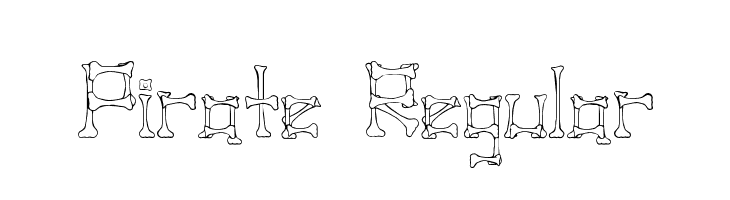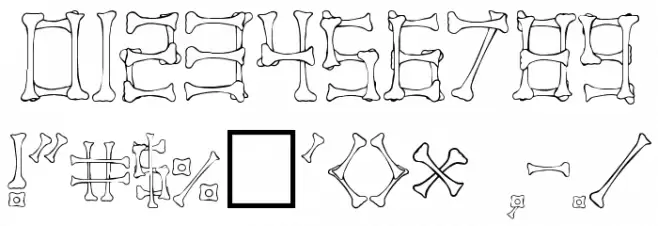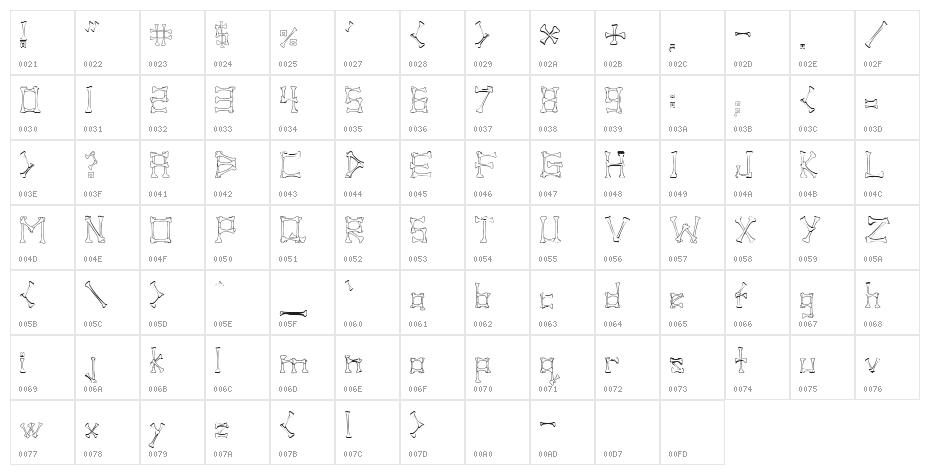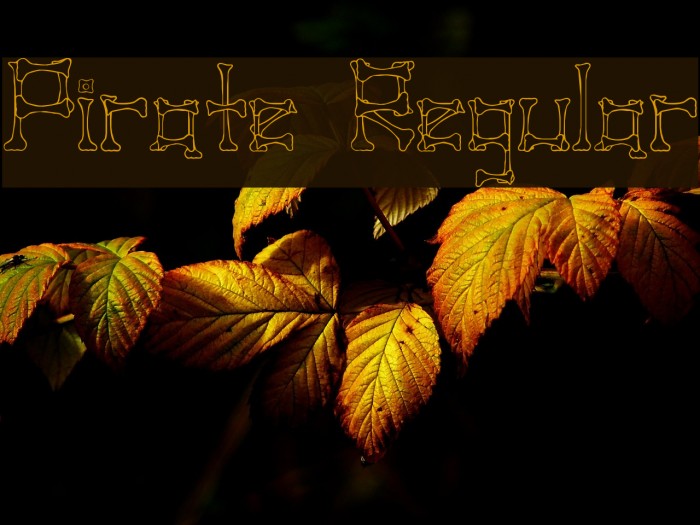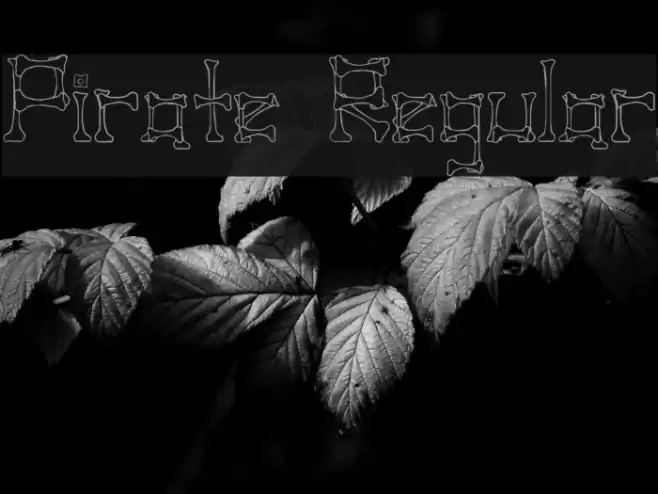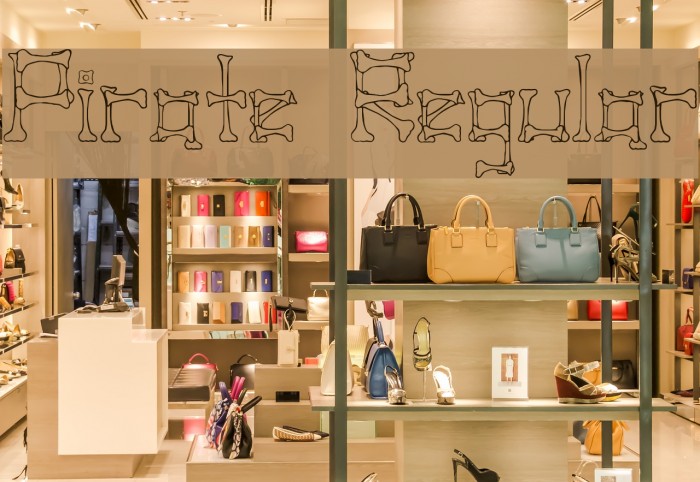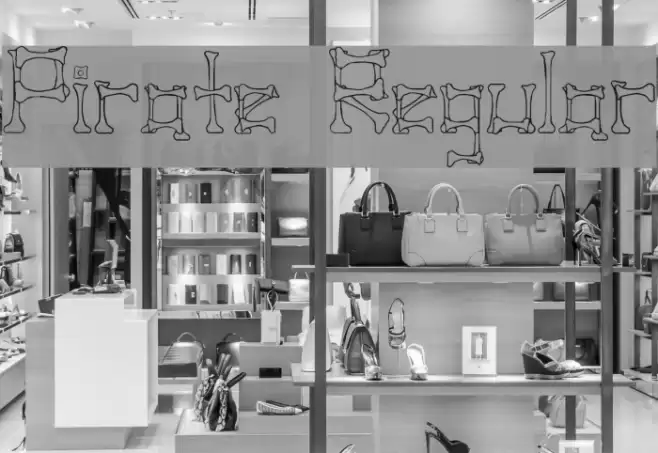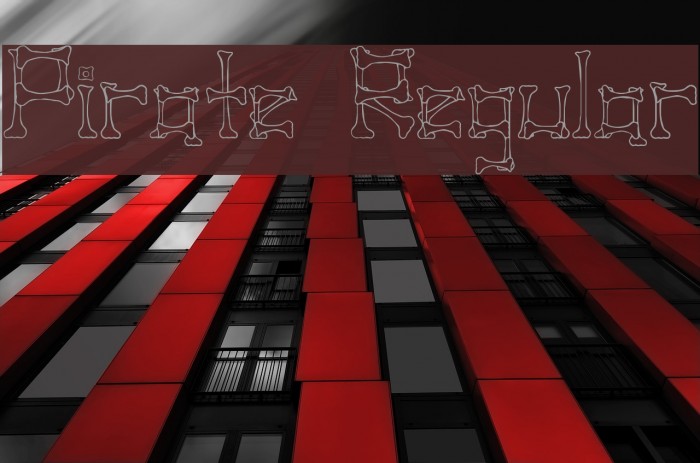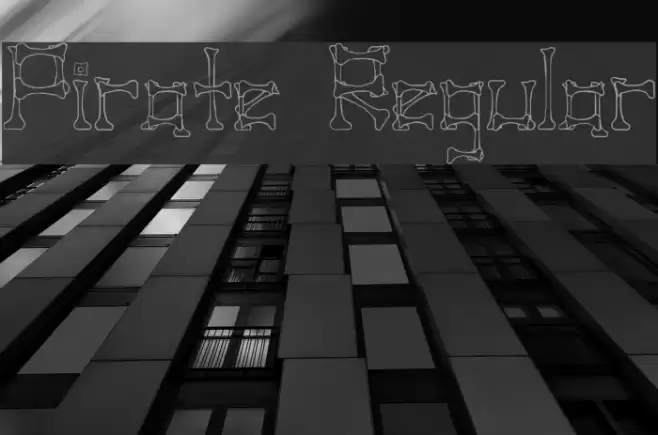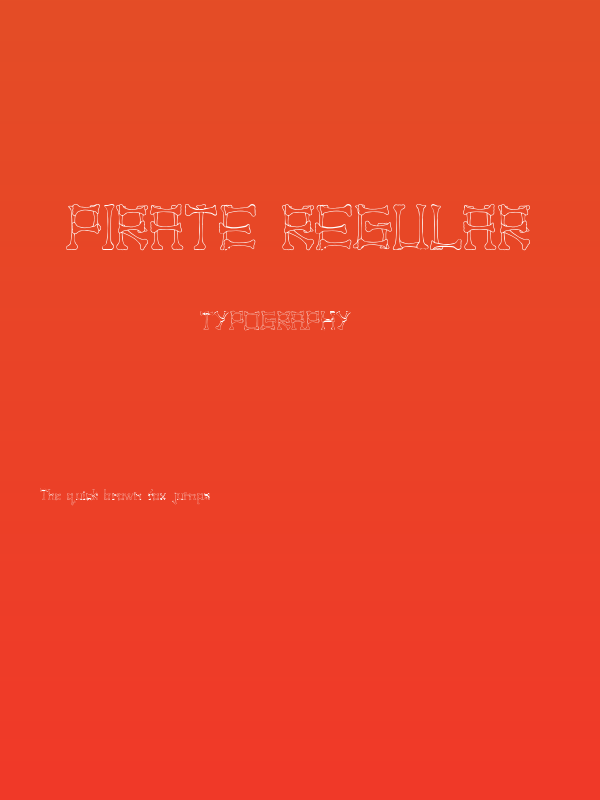
Pirate Regular Font
Pirate Regular Description
This font features a unique and playful design that mimics the appearance of bones, giving it a pirate or Halloween-themed aesthetic. Each character is crafted with a skeletal structure, creating a whimsical and adventurous feel. The uppercase and lowercase letters maintain a consistent style, with exaggerated curves and angles that enhance the bone-like appearance. Numbers and special characters follow the same thematic design, ensuring a cohesive look across all glyphs. This font is ideal for projects that require a touch of fantasy or a spooky atmosphere.
Use CaseHeadlines, Logos, Themed Events
Proposed ProjectsIdeal for Halloween invitations, pirate-themed events, children's books, or spooky decorations.